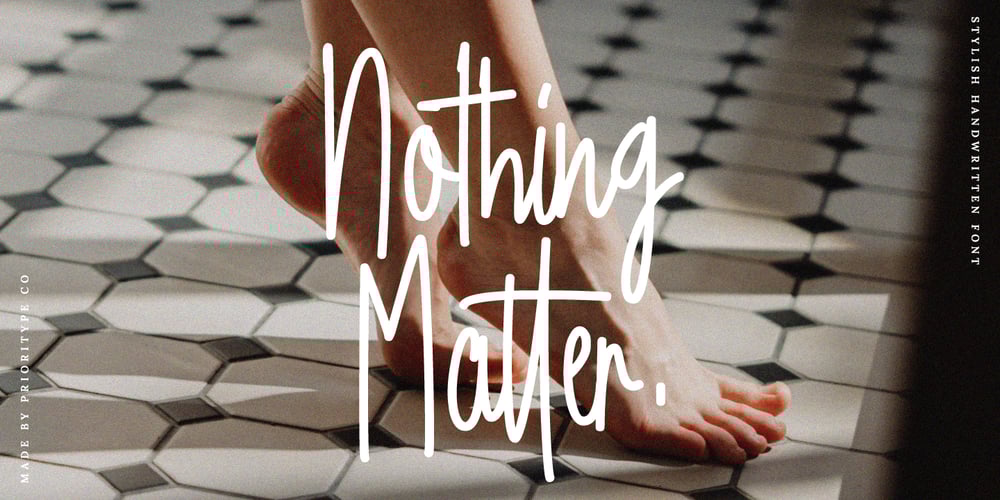
Nothing Matter Font Family was designed by Prio Nurokhim Aji and published by Prioritype. Nothing Matter contains 1 styles and family package options. Nothing Matter – Stylish Handwritten Font.Simple but stylish handwritten monoline font. Equipped with ligatures and alternatives characters make it more natural. Suitable for wedding invitation designs, quotes, logos and branding. Features: Uppercase, Lowercase, Numeral, Punctuation, Multilingual, Alternates, Ligatures & PUA Encoded. Multilingual contained: Afrikaans, Albanian, Asu, Basque, Bemba, Bena, Breton, Catalan, Chiga, Cornish, Danish, Dutch, English, Estonian, Filipino, Finnish, French, Friulian, Galician, German, Gusii, Indonesian, Irish, Italian, Kabuverdianu, Kalenjin, Kinyarwanda, Luo, Luxembourgish, Luyia, Machame, Makhuwa-Meetto, Makonde, Malagasy, Manx, Morisyen, North Ndebele, Norwegian Bokmål, Norwegian Nynorsk, Nyankole, Oromo, Portuguese, Quechua, Romansh, Rombo, Rundi, Rwa, Samburu, Sango, Sangu, Scottish Gaelic, Sena, Shambala, Shona, Soga, Somali, Spanish, Swahili, Swedish, Swiss German, Taita, Teso, Uzbek (Latin), Volapük, Vunjo, Zulu. Thanks!